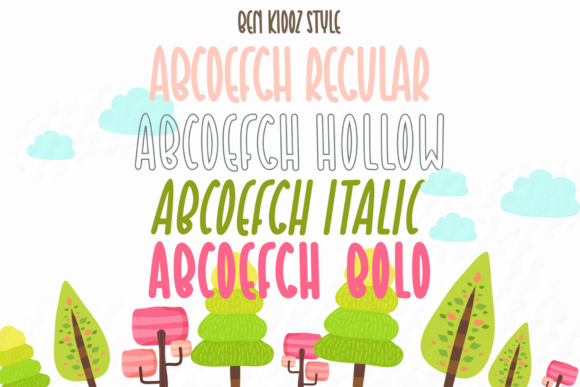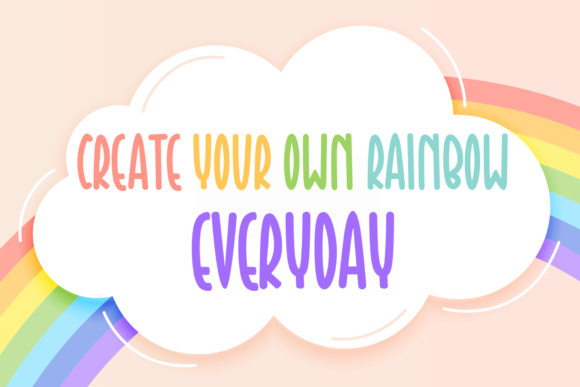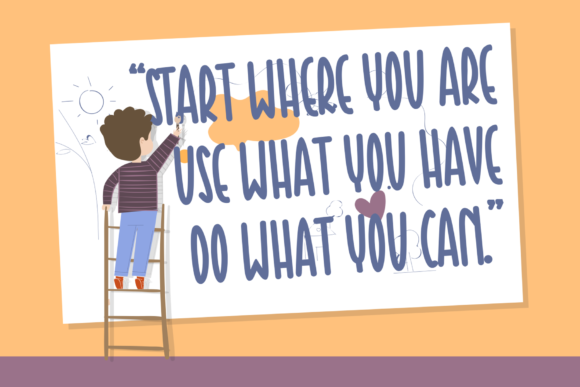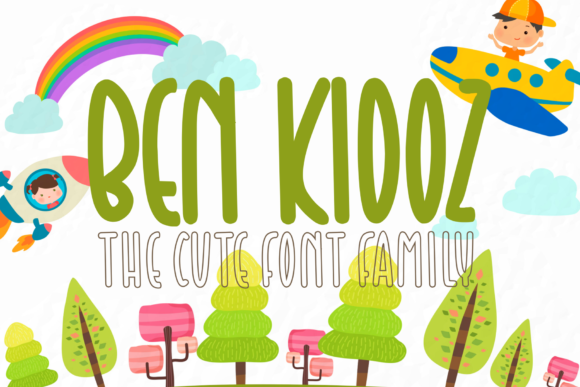
Introduction to Ben Kidoz Font
Ben Kidoz is a sweet and friendly display font, created with an incredible playful touch.
Add this font to your favorite creative ideas and notice how it makes them come alive .
Key Features of Ben Kidoz Font
Why Choose Ben Kidoz Font?